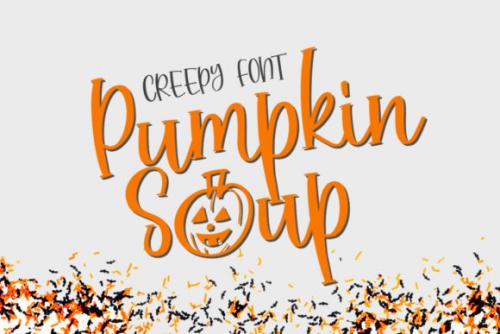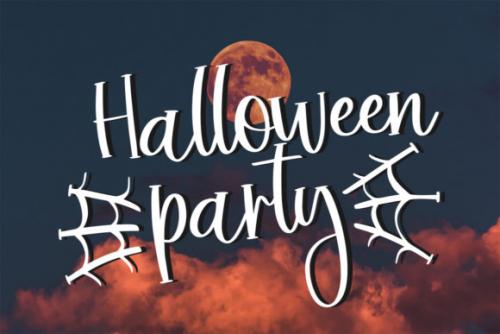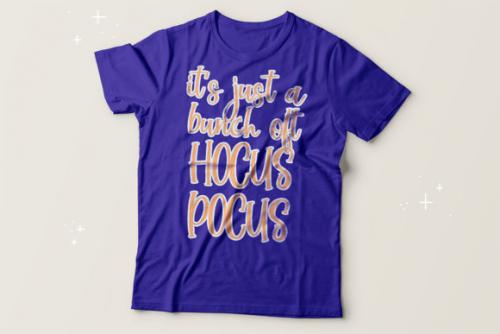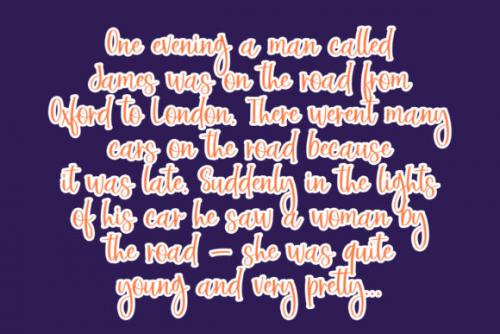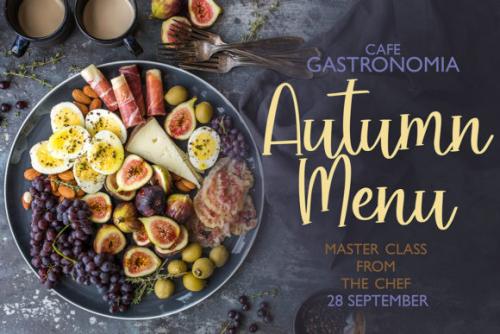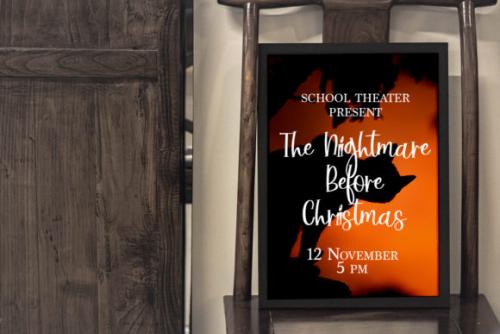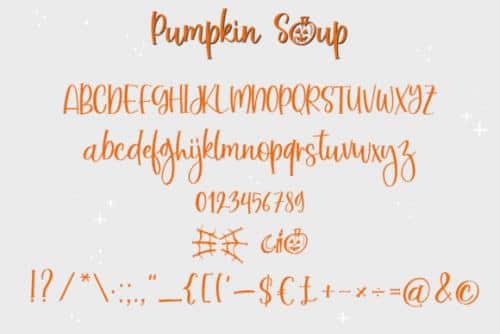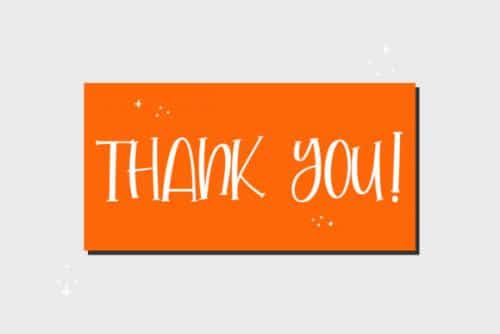
Pumpkin Soup Font is a cute and quirky display font. It’s look outstanding in any context, whether it’s being used on busy backgrounds or as a standalone headline!
It will add an incredibly joyful touch to your designs. Add this beautiful display font to each of your creative ideas and notice how it makes them stand out!